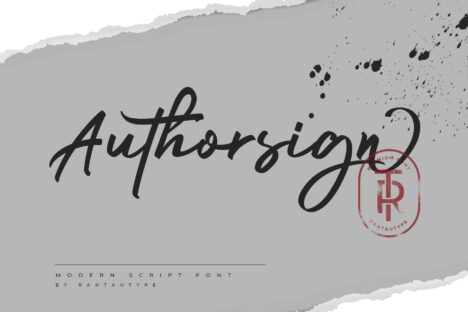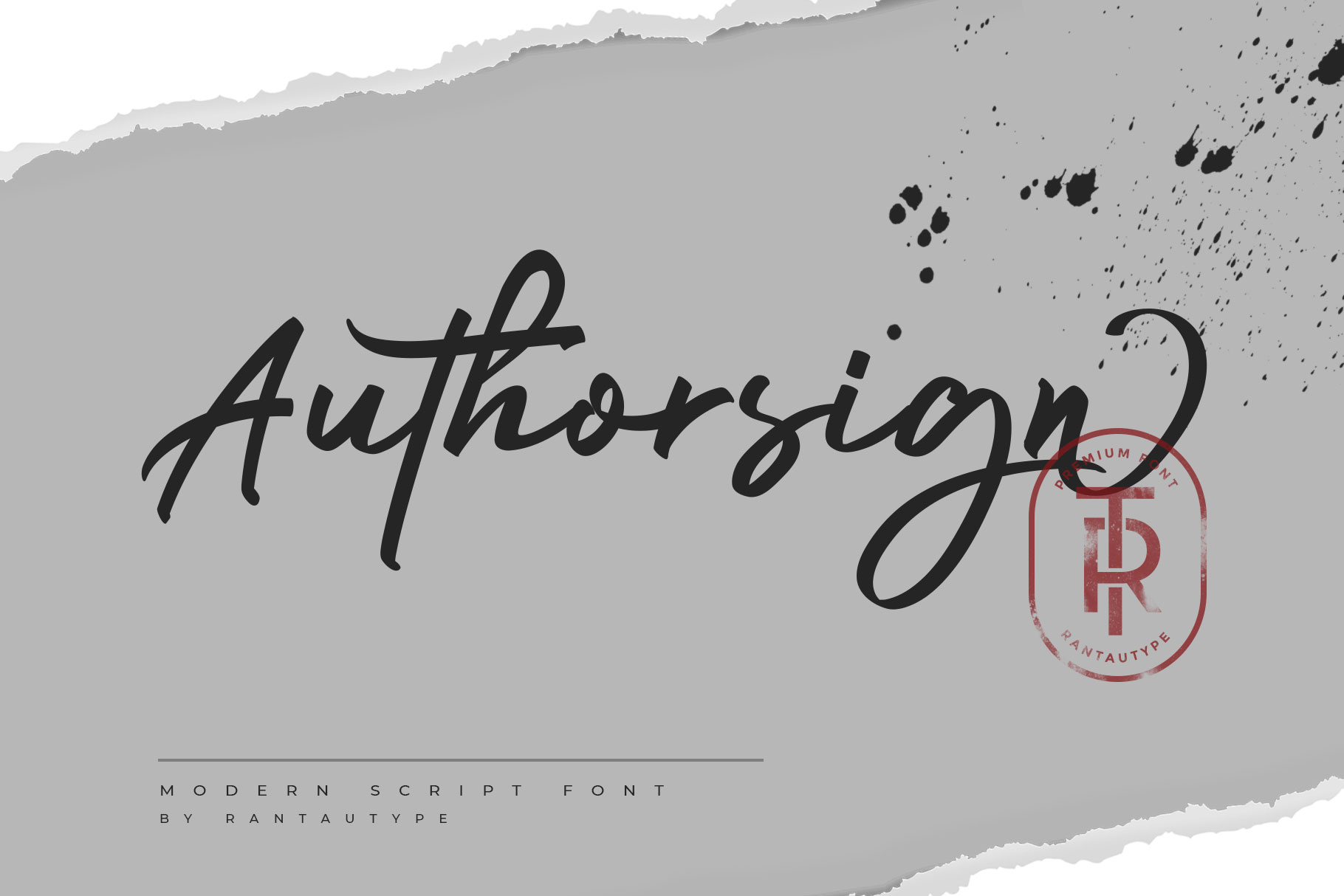
Authorsign Handwritten Font
Proudly present bold modern authentic font “Authorsign”.
Every single curve has my personality touch. It is great for making logotype, branding, promotional ads, quotes design, packaging, t-shirt design. merchandise, poster, merchandise, social media and much more. Authorsign is here to make your work or your business to high level!!!